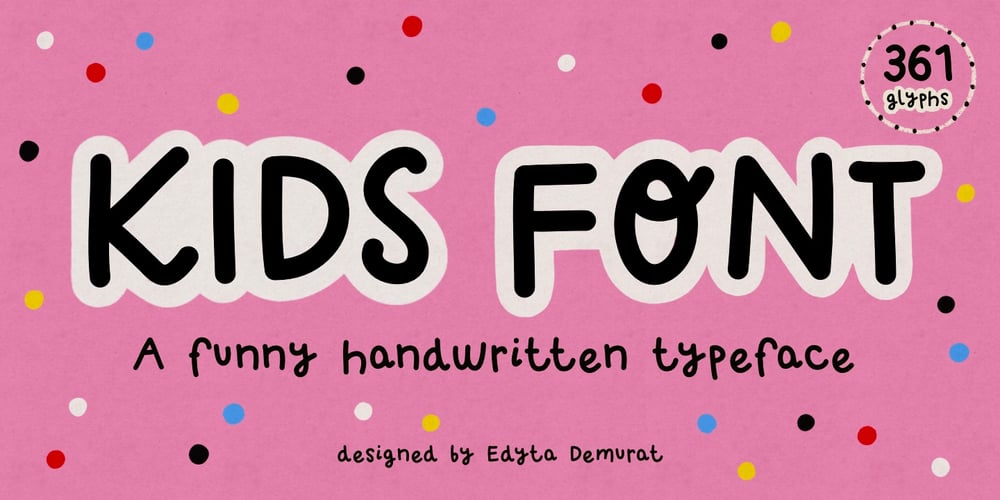
Kids Font
Kids Font font
Kids Font Font Family was designed by Edyta Demurat and published by Edyta Demurat. Kids Font contains 1 styles and family package options. This is a fun, multi-lingual font made for children’s publications. Perfect for books, magazines, posters or various gadgets.